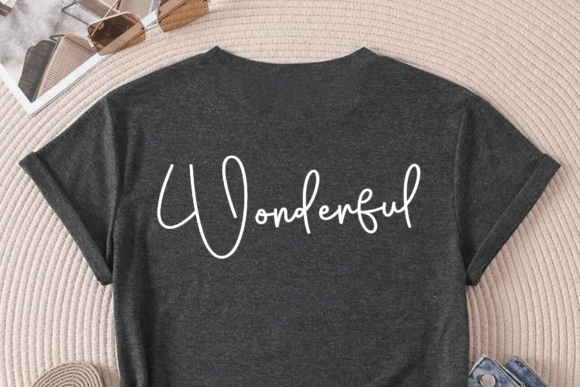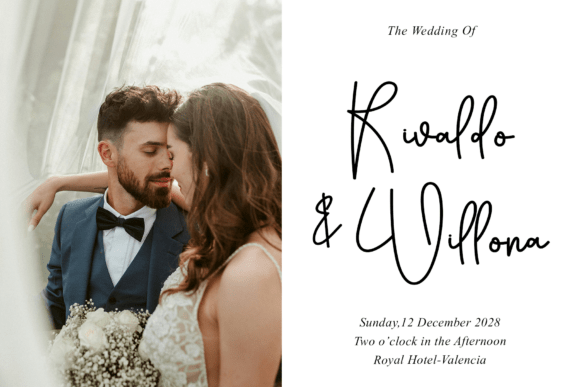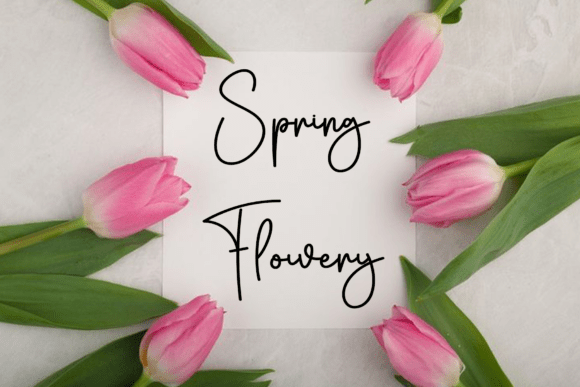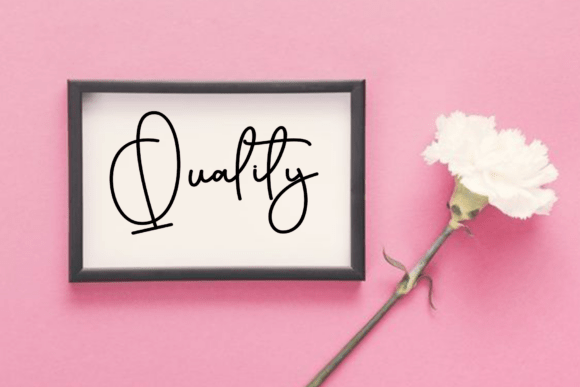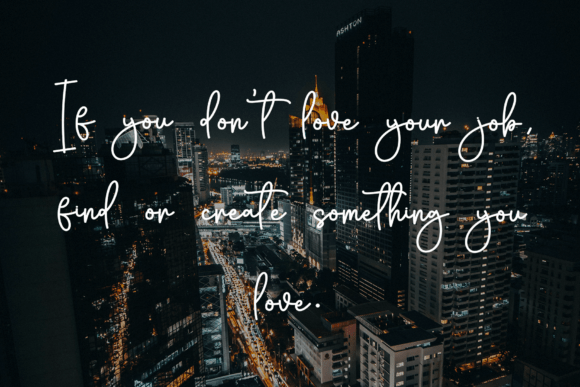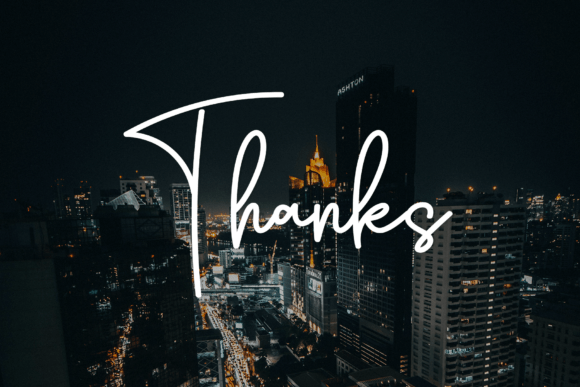
Discover the Urban Sophistication of Citylight Font
Have you ever been in the midst of working on a design project, and suddenly, you’re struck by the desire to capture the vibrant energy of a bustling metropolis? I recall a particular evening when I was tasked with creating a travel brochure for a trendy city getaway. As I poured over my design, I realized that the font I was using just wasn’t cutting it – it lacked the urban sophistication and modern flair that I wanted to convey. That’s when I stumbled upon Citylight, a “new style” handwritten script font that would change the game.
The Birth of Citylight
Citylight is more than just a font – it’s an experience. Characterized by its large, airy loops and sweeping horizontal connectors, this typeface mimics the fluid motion of light trails in a night-time cityscape. Its slender, monoline weight provides a contemporary and trendy aesthetic, making it an ideal choice for high-end travel branding, nocturnal event flyers, modern lifestyle headers, and stylish digital watermarks.
My Honest Review of Citylight
So, what do I love about Citylight? Here are a few highlights:
• ✨ Elegant and sophisticated design that’s perfect for high-end branding
• ✅ Highly legible, even at smaller font sizes
• 💫 Beautifully crafted to evoke the energy of a city at night
• 🎨 Versatile and adaptable to various design contexts
Of course, no font is perfect, and Citylight has a few quirks:
• 🤔 Some users may find the font a bit too slender for certain design applications
• ⚠️ Limited availability of certain OpenType features in certain software
The Designer Inspiration Behind Citylight
According to its creators, Citylight was inspired by the vibrant energy of city life at night. Imagine strolling through a bustling metropolis, surrounded by neon lights, street performers, and the hum of activity. This font captures that essence, distilling it into a beautiful, elegant typeface.
What is Citylight font best suited for? Citylight is ideal for high-end travel branding, nocturnal event flyers, modern lifestyle headers, and stylish digital watermarks.
Is Citylight a script font? Yes, Citylight is a handwritten script font with a slender, monoline weight.
Does Citylight support OpenType features? Yes, Citylight supports OpenType features, including glyphs and stylistic alternates, which can be accessed in compatible software.